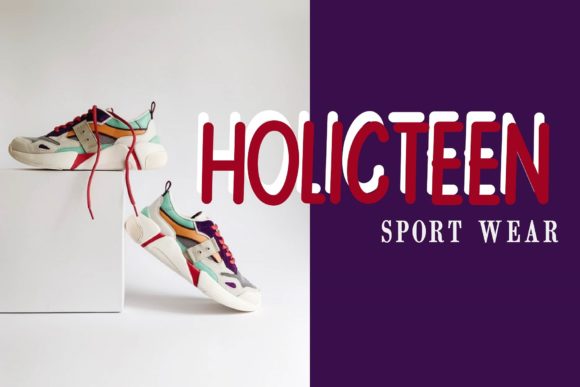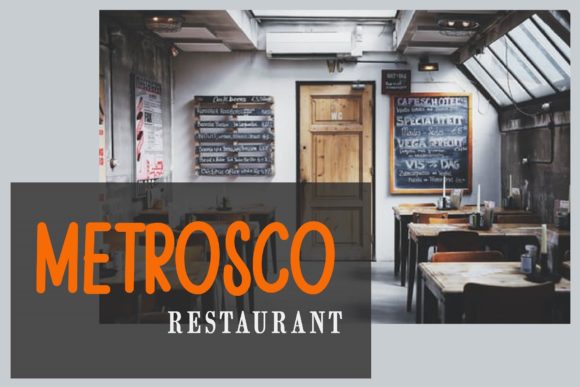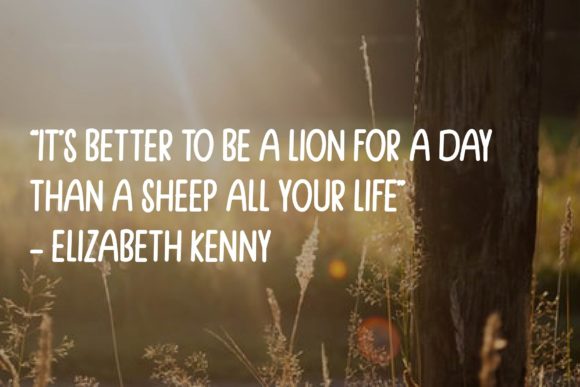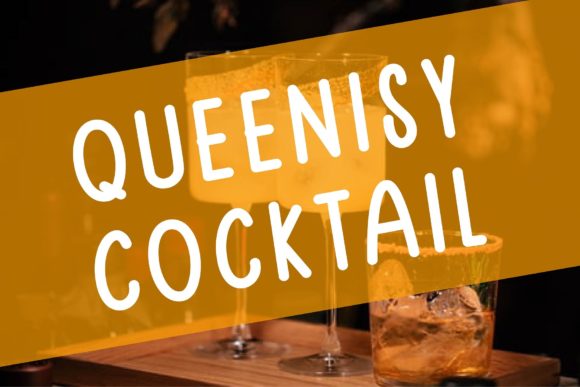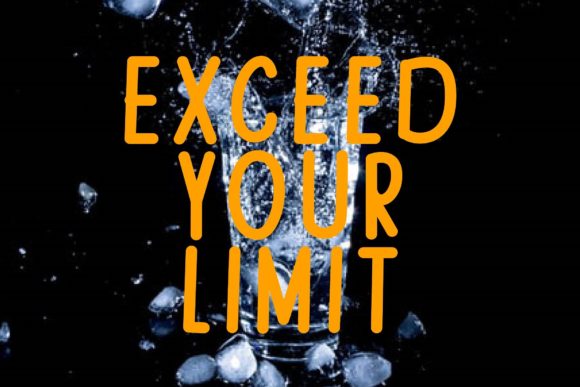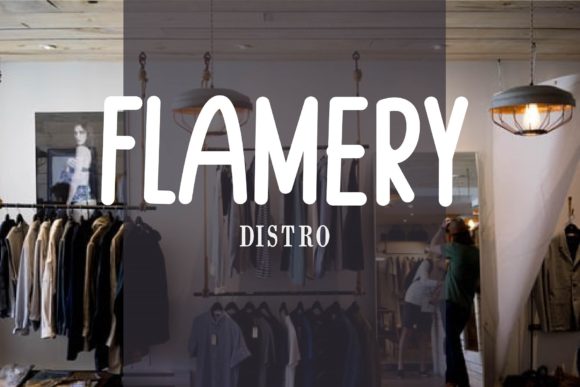
Introduction to Hanster Font
Imagine you’re working on a creative project and you need a font that perfectly captures the essence of your design. The words, the style, the overall feel – everything comes together to create a masterpiece. But, have you ever struggled to find the perfect font to complement your vision? This is where the Hanster Font comes in – a game-changing design resource that will elevate your creative project to the next level.
As a designer, you understand the importance of having high-quality design elements at your disposal. The Hanster Font is a valuable addition to your design arsenal, offering a unique and stylish way to express your creativity. With its versatility and ease of use, this font is perfect for branding, product packaging, invitations, quotes, t-shirts, labels, posters, or any logo you want to develop.
Key Features of Hanster Font
- Unique Design: The Hanster Font features a distinctive and quirky design, making it perfect for creative projects that require a touch of personality.
- Comprehensive Font Family: The Hanster Font includes a comprehensive font family with multiple weights and styles, allowing you to customize your design to suit your needs.
Honest Review: Hanster Font
As a designer, I’m always on the lookout for high-quality design resources to elevate my creative projects. Recently, I had the chance to work with the Hanster Font, and I’m excited to share my honest review with you.
- ✨ Beautifully crafted letterforms that exude a sense of whimsy and playfulness
- ✨ Supports a wide range of languages, making it a great choice for global design projects
- ⚠️ Limited character set, which may not be suitable for extended text-based designs
- ⚠️ Not ideal for use in small font sizes, as the letterforms may become difficult to read
Overall, I’m impressed with the Hanster Font’s unique charm and versatility. While it may not be perfect for every design project, it’s a fantastic choice for creative endeavors that require a touch of personality and flair. If you’re looking for a high-quality design resource to add some excitement to your next project, the Hanster Font is definitely worth considering.
The Hanster Font is a versatile design resource that can be used for a variety of creative projects, including logos, posters, business cards, and social media graphics. Its high quality and transparent background make it an ideal choice for designers looking for a professional look.